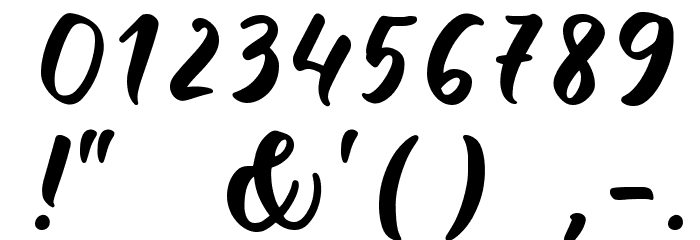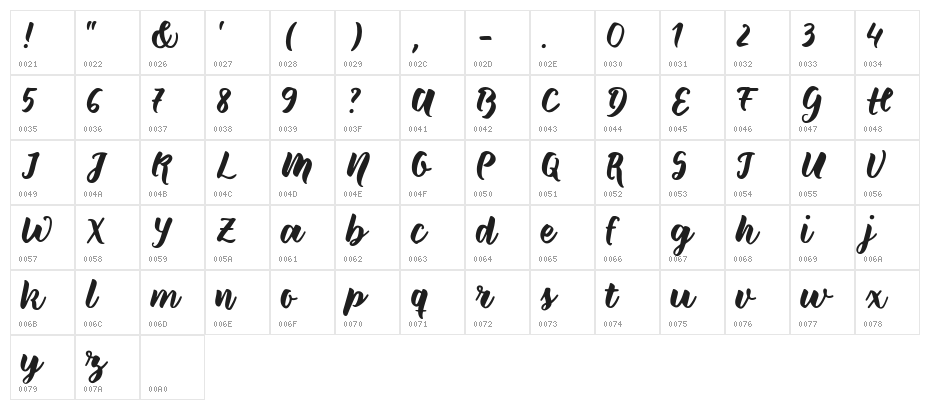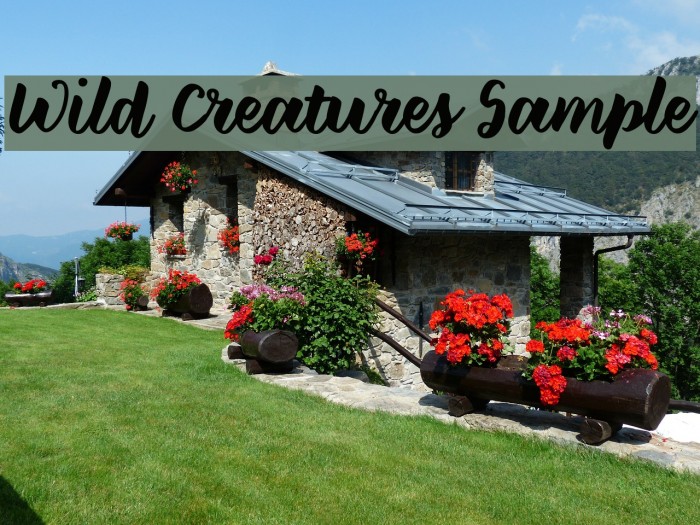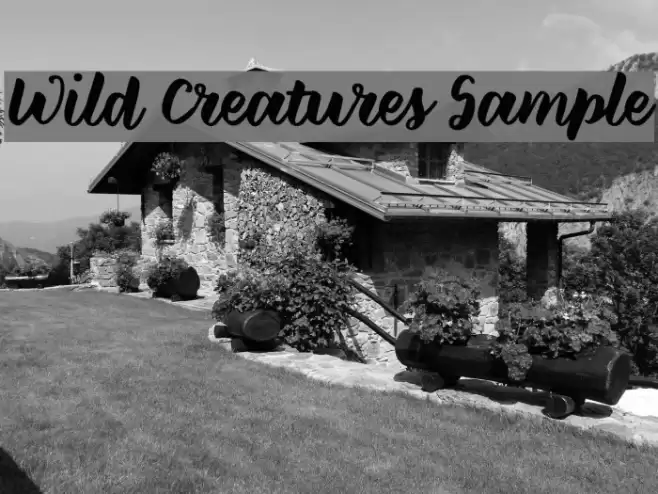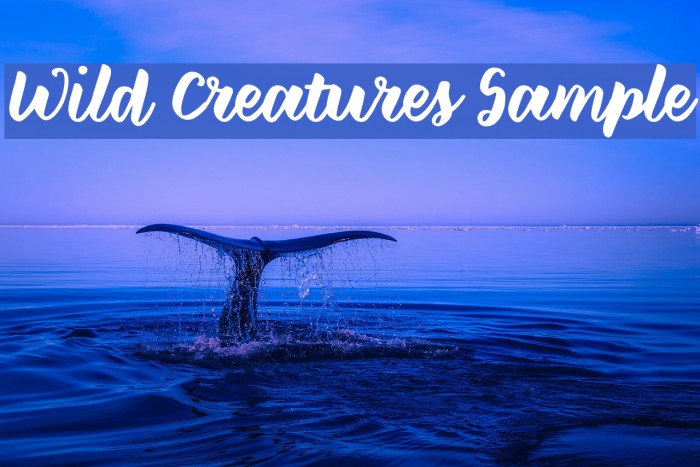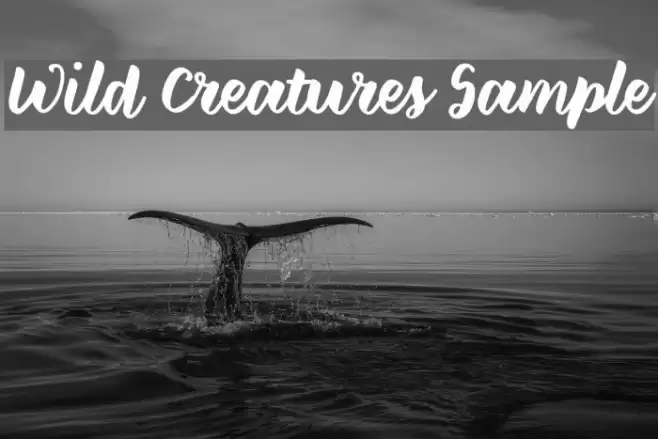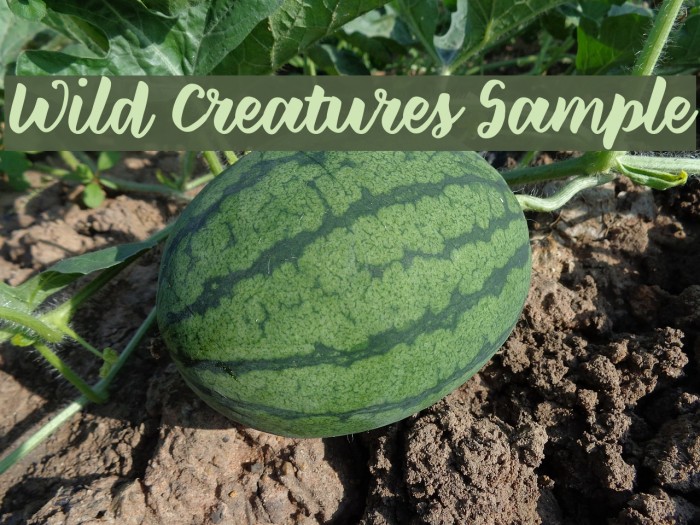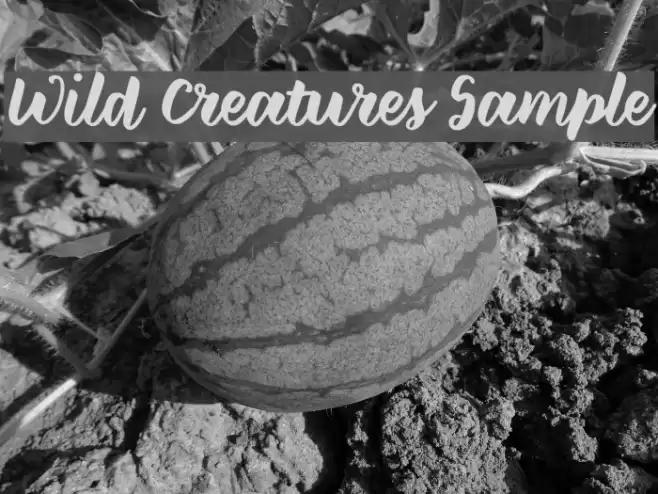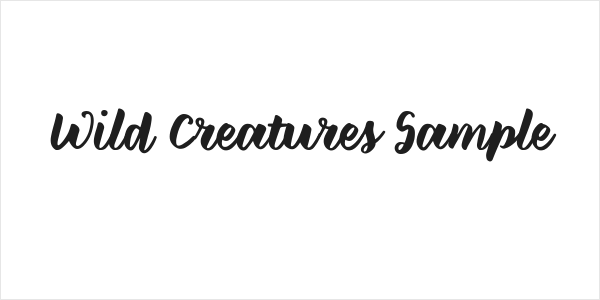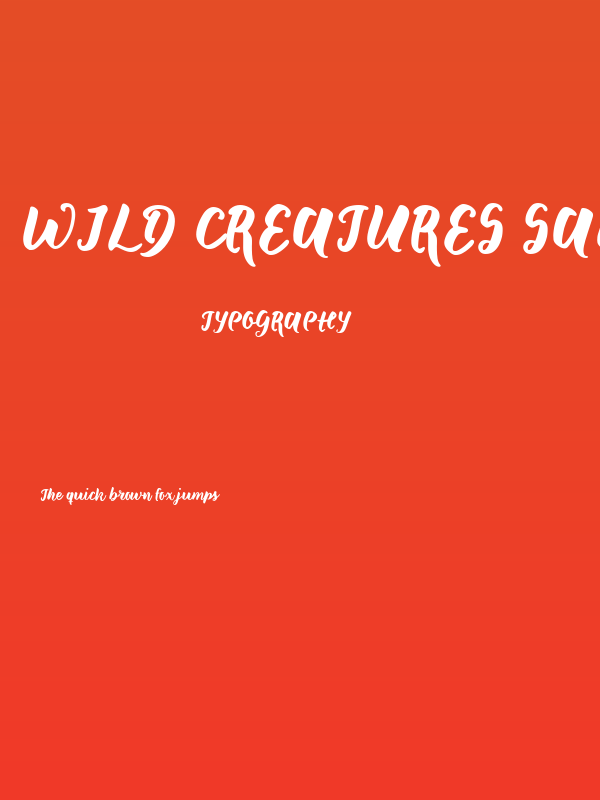
Wild Creatures Sample Font
Wild Creatures Sample Description
This font features a bold and expressive script style, characterized by its flowing, cursive letterforms. The strokes are thick and consistent, giving it a strong presence on the page. Each character is designed with a playful and dynamic flair, making it ideal for creative and artistic projects. The uppercase letters maintain a uniform height, while the lowercase letters exhibit a slight slant, enhancing the font's fluidity. The numerals are equally bold, ensuring readability and consistency across different uses. Special characters are included, maintaining the same stylistic approach, which adds versatility to the font's application.
| Proposed Projects | Ideal for branding, logo design, invitations, and creative posters. |